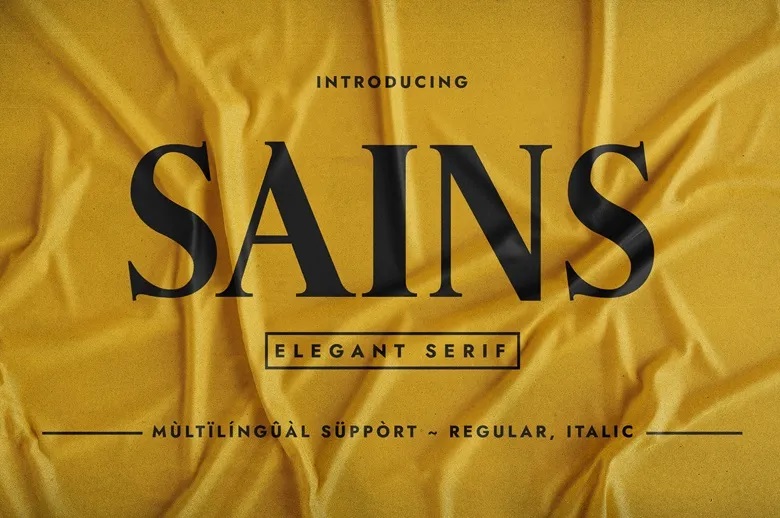
Sains Font
Sains is a serif font that is clean, minimalistic and elegant. With its fantastic glyphs development, it’s an essential pick for those looking to work on creative endeavors that call for a sophisticated minimalist aesthetic. It can be used for packaging design, greeting cards, invitations, branding for cosmetics, etc.